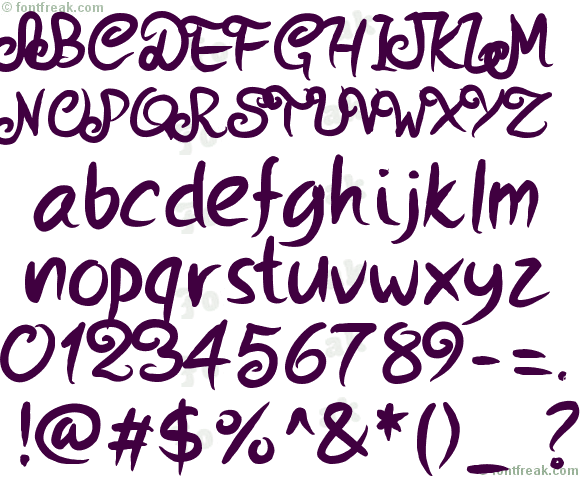
PWStrokes
About PWStrokes
PWStrokes, designed by Peax Webdesign, is a captivating display font that seamlessly blends elegance with a playful charm. As a decorative typeface, it features a unique combination of flowing curves and whimsical flourishes, making it an excellent choice for projects that require a touch of creativity and flair. The strokes of PWStrokes vary in weight, creating a delightful contrast that enhances its visual appeal. The letters are characterized by their playful loops and swirls, adding a sense of movement and dynamism to any design.
This font is particularly well-suited for a variety of specific use cases. It shines in wedding invitations, where its romantic elements can evoke a sense of joy and celebration. PWStrokes is also an excellent choice for movie posters, where its distinctive style can capture attention and create an enticing atmosphere. Additionally, it can be effectively used in branding for restaurants, giving menus a unique and inviting feel. Content creators looking to add personality to their social media graphics will find this font ideal, as it stands out in digital spaces.